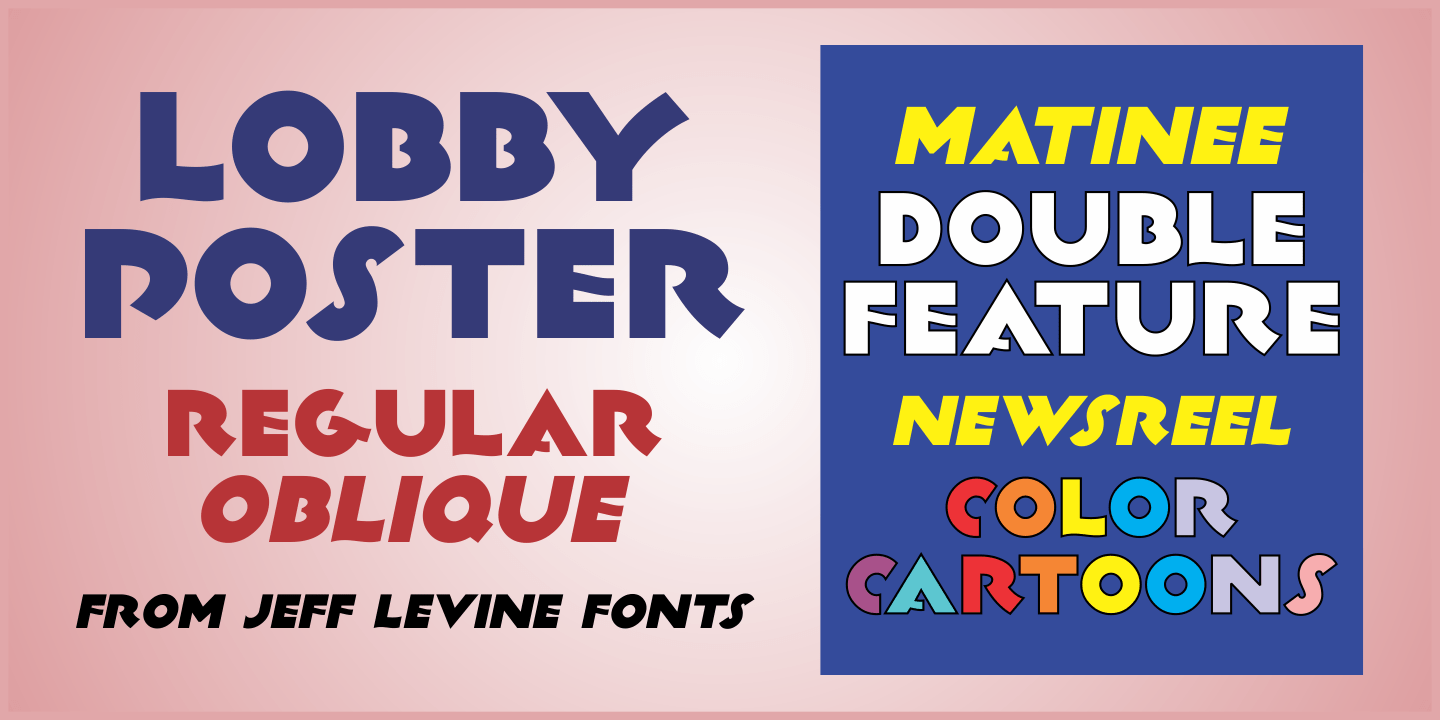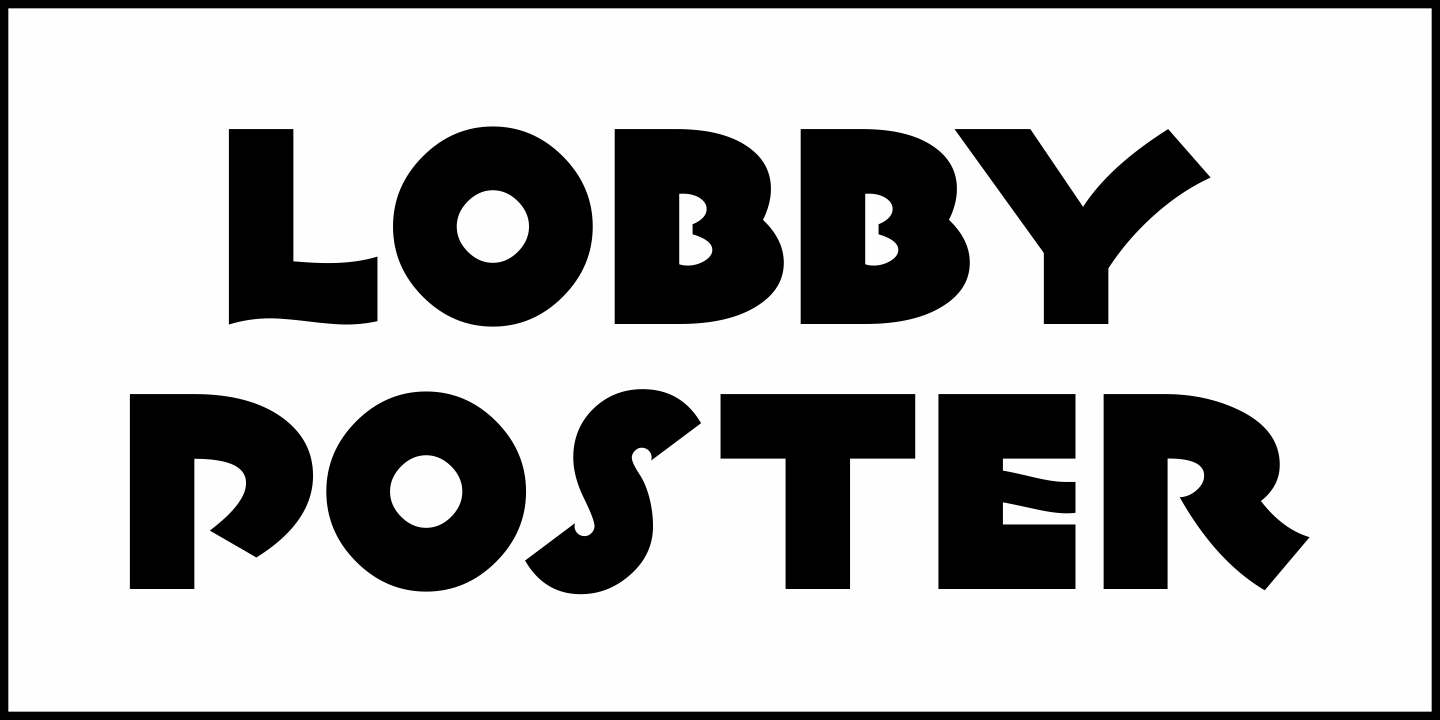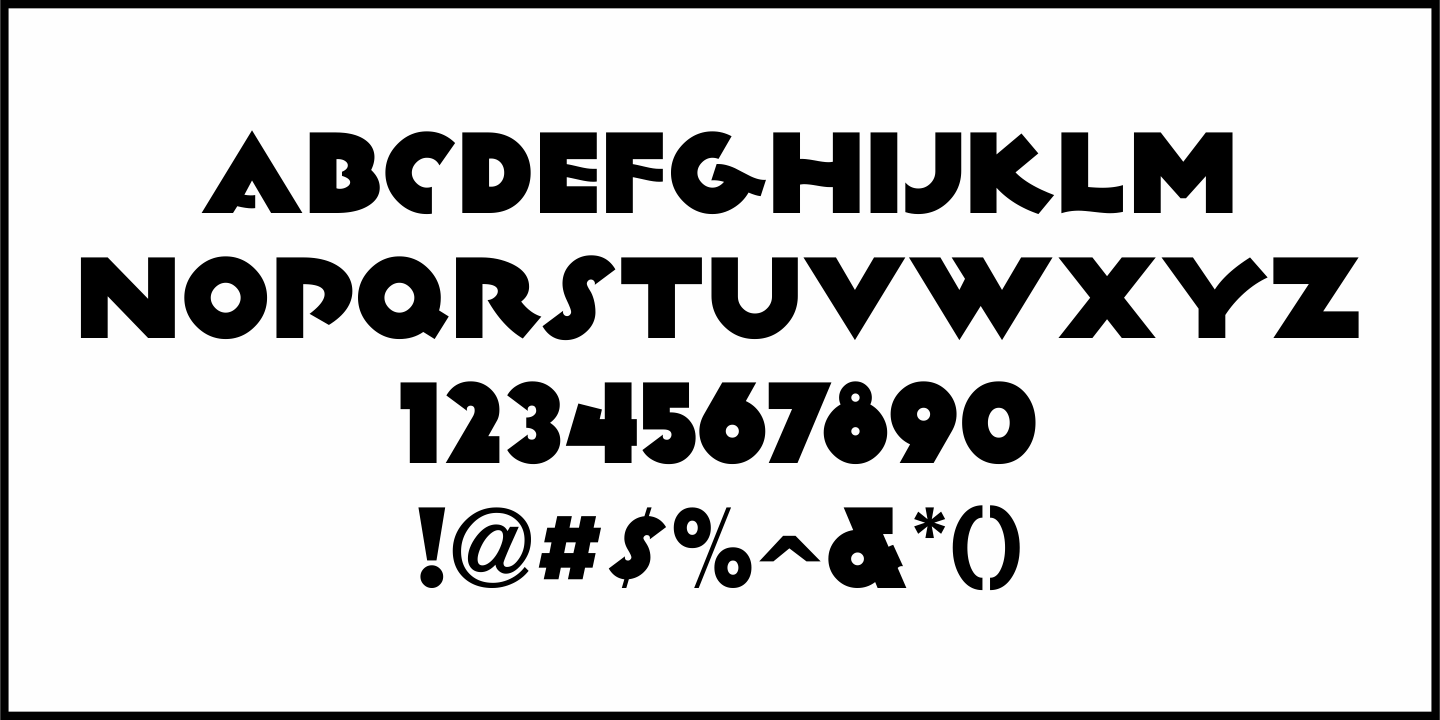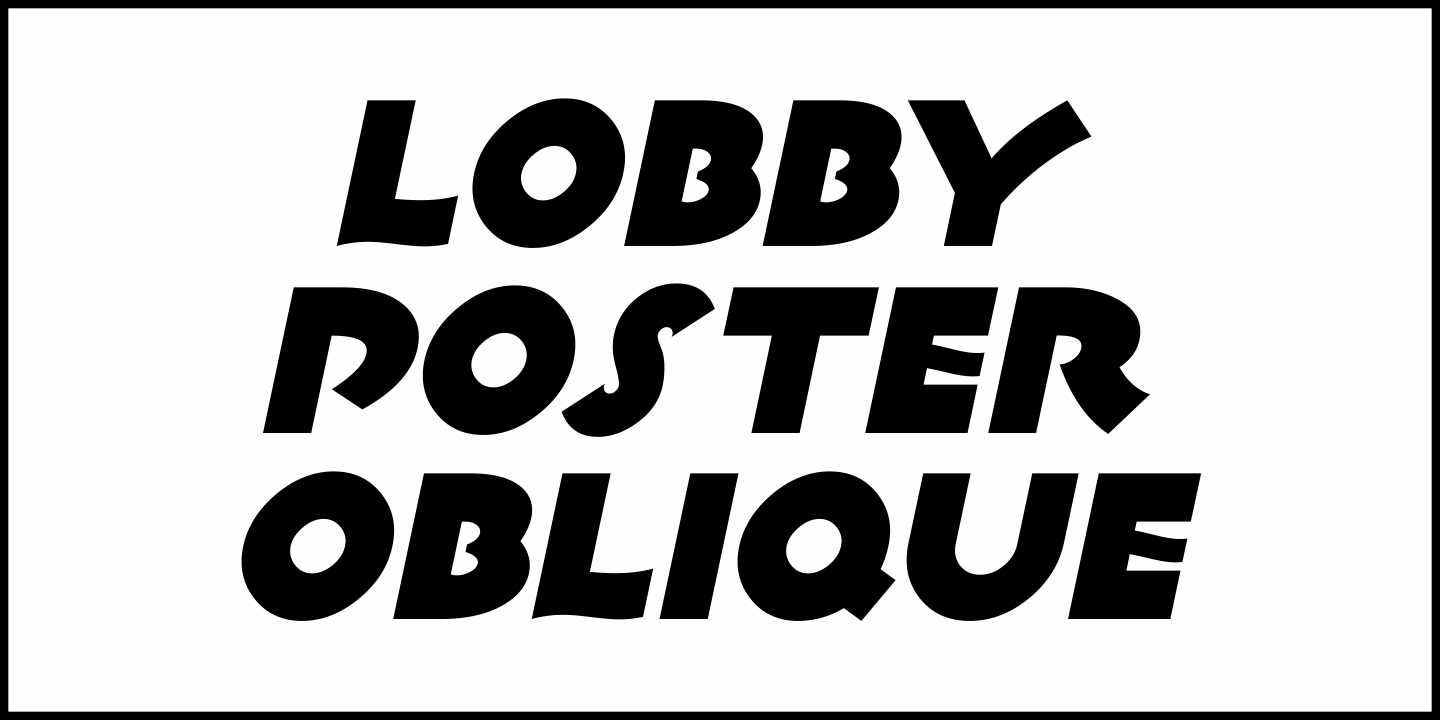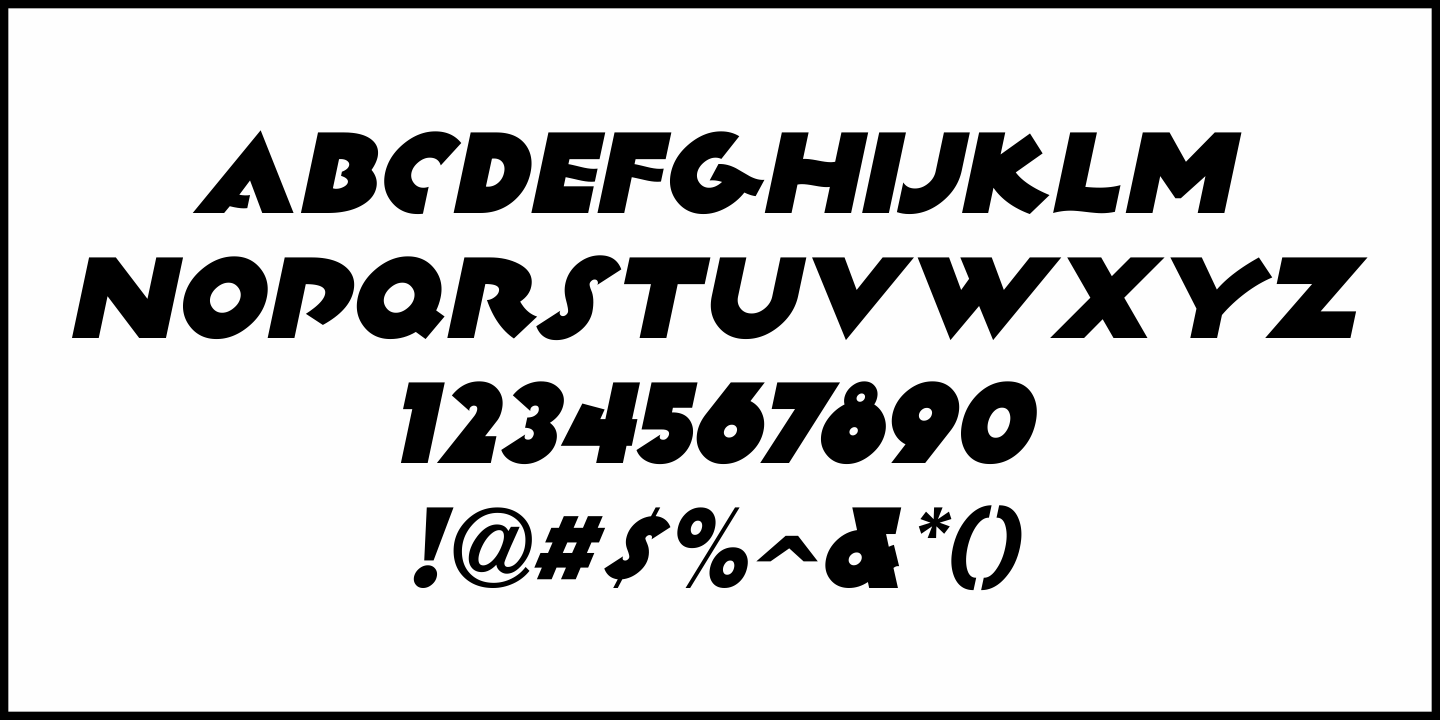
Lobby Poster
The hand lettered cast credits for the 1932 George Arliss film “The Man Who Played God” inspired Lobby Poster JNL, which is available in both regular and oblique versions.
A bold and playful Art Deco poster alphabet, its nonconformist character widths and shapes are casual enough for informal designs yet bold enough to get any point across.